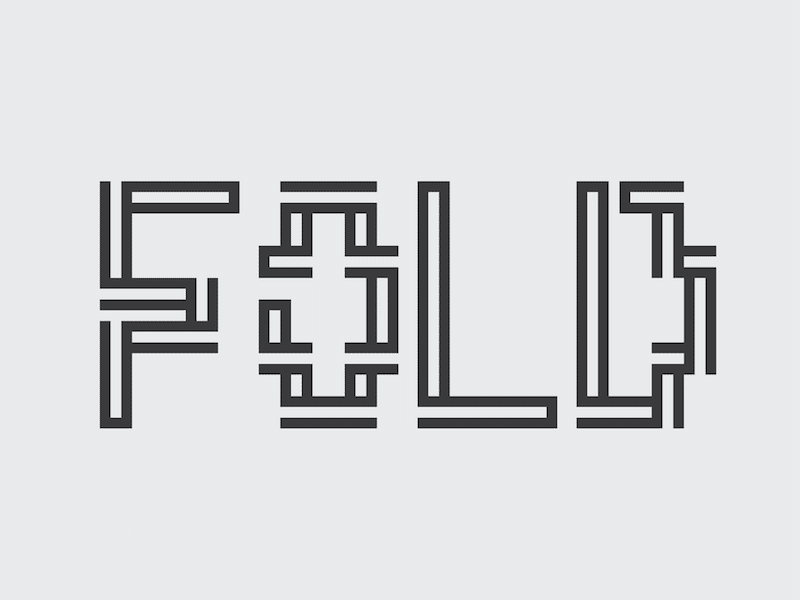
Fold Font
The Font is a typeface made out of only horizontal and vertical lines. It was originally made as a bitmap typeface but then adapted into what it is now. The concept behind this font was the idea of folding a piece of paper over on it’s self to make a letter form. This was then simplified into the final font design. Designed by Isaac Taracks.